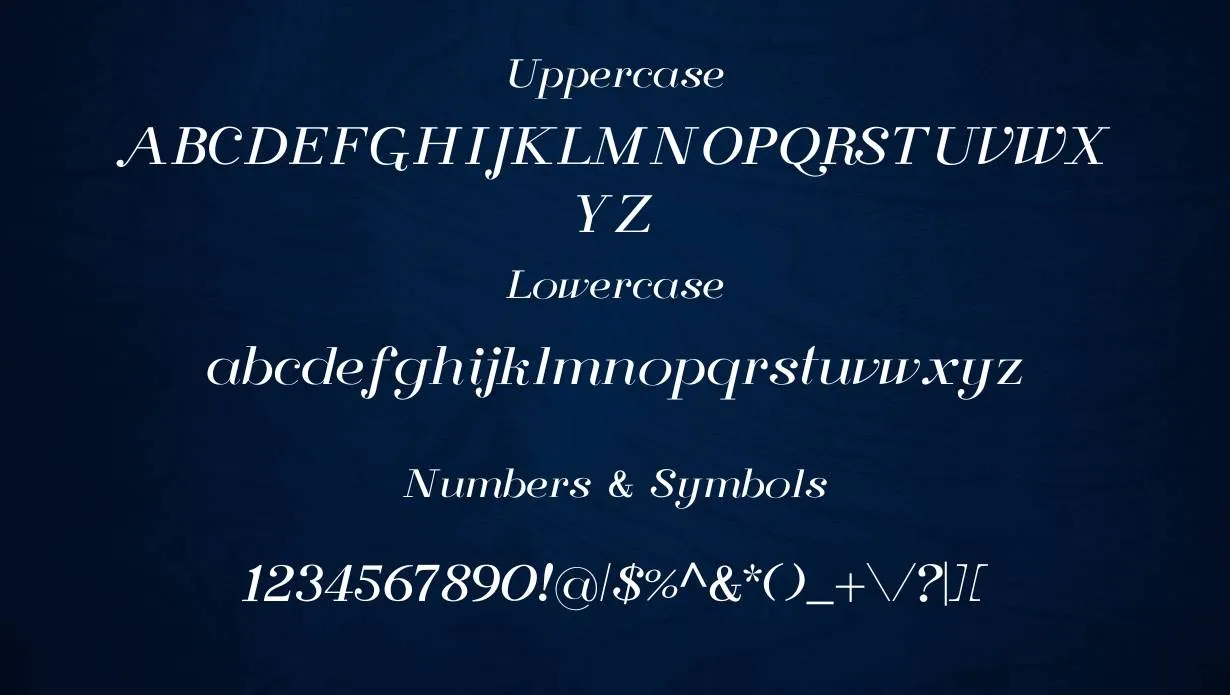
Florence font is like a stroll through an artistic city—graceful, classic, and full of charm. When you use it, your words become like a tour through a timeless gallery, exuding sophistication and style.
| Name | Florence Font |
| Designer | Sascha Timplan |
It’s great for formal documents, invitations, or anything that calls for a touch of timeless class. Florence’s letters are like elegant artworks, each one contributing to the enduring charm of your message.